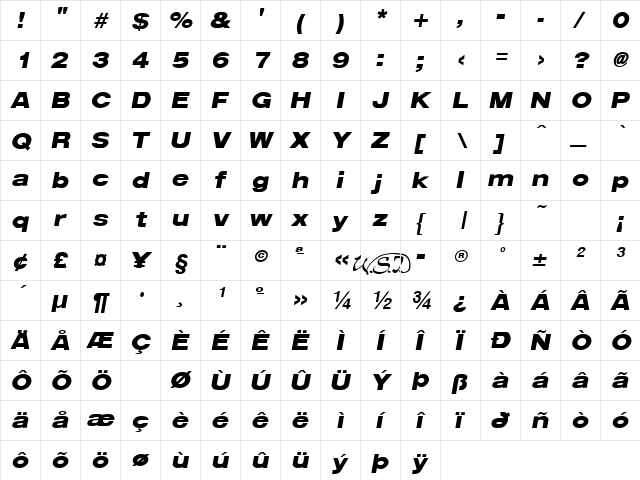
Arena Black Extended Italic
Design Context for Arena Black Extended Typeface
Arena Black Extended takes a measured approach to typography — its balanced proportions and neutral character make it a reliable workhorse for both digital and print work. Its italic angle brings a sense of urgency and motion to the letterforms.
Pro Tip: Use Arena Black Extended for emphasis, pull quotes, and subheadings where its slanted energy can add rhythm to the layout.